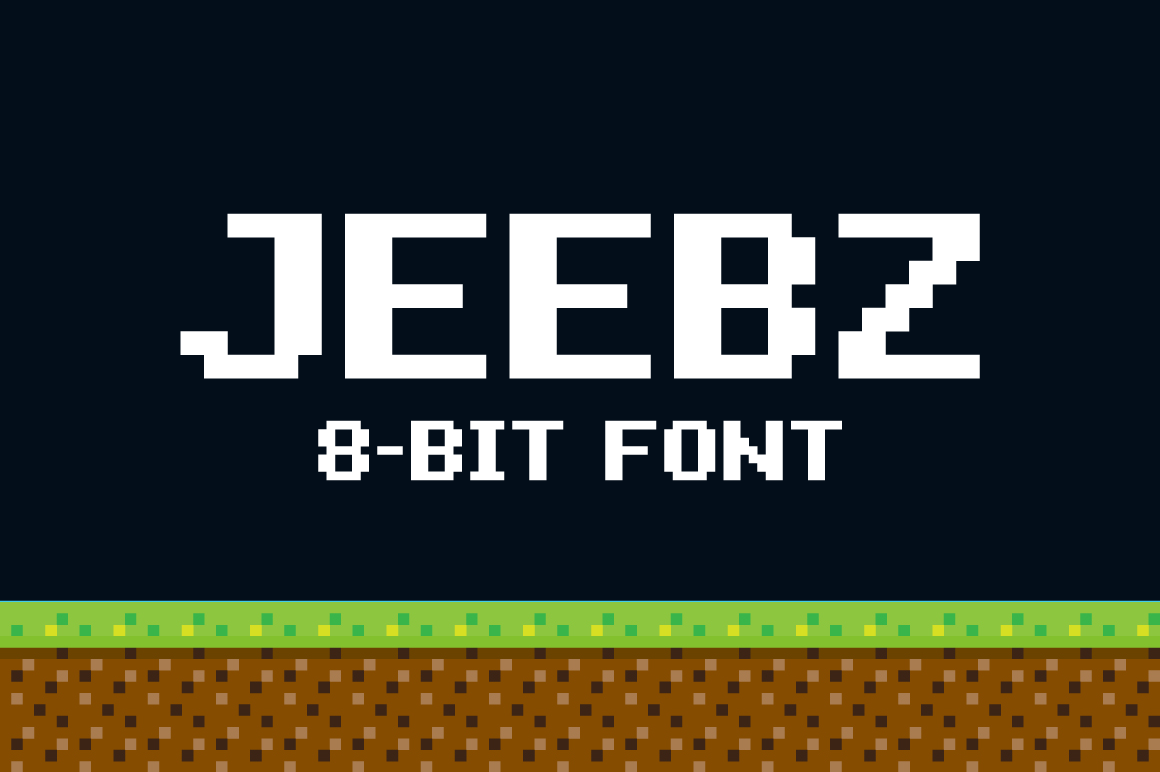
Jeebz: 8-bit font
Jeebz is a pixel art font family for your game or retro-looking project.
- bold and regular fonts
- UPPER and lower case letters
- letters, digits and punctuation marks